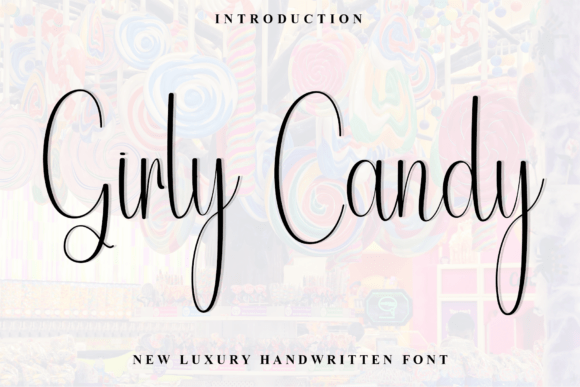
Girly Candy Font: Elevate Your Design with Elegant and Flowing Script
In the world of typography, few fonts manage to capture the essence of elegance and sophistication as effortlessly as the Girly Candy Font. This beautiful script font is a modern take on traditional hand-lettered calligraphy, boasting smooth curves and graceful strokes that instantly elevate any design. Whether you’re looking to create stunning wedding invitations, craft a luxurious logo, or simply add a touch of class to your social media graphics, the Girly Candy Font is the perfect choice.
The Beauty of Girly Candy Font
The Girly Candy Font is more than just a collection of letters; it’s an expression of artistry and refinement. Its elegant and flowing design makes it an ideal choice for projects that demand a high level of sophistication. The font’s smooth curves and graceful strokes are meticulously crafted to provide a luxurious feel, making it perfect for:
- Wedding invitations and ceremony programs
- Logos and branding materials for high-end businesses
- Social media graphics and posts that require a touch of elegance
- Packaging and product labels for premium products
A Modern Twist on Traditional Calligraphy
The Girly Candy Font takes inspiration from traditional hand-lettered calligraphy but infuses it with a modern twist. This blend of classic and contemporary styles results in a font that feels both timeless and current. The font’s design is characterized by:
- Smooth, flowing curves that create a sense of movement
- Graceful strokes that add a touch of elegance
- A refined and sophisticated aesthetic that works well in a variety of contexts
The Versatility of Girly Candy Font
One of the standout features of the Girly Candy Font is its versatility. This font can be used in a wide range of design projects, from romantic and whimsical to classy and chic. Whether you’re aiming for a vintage feel or a modern look, the Girly Candy Font adapts seamlessly to your design vision.
The font’s ability to convey charm and personality in every letter makes it an excellent choice for designers who want to create unique and memorable designs. For instance:
- Use the Girly Candy Font in wedding designs to create a romantic and whimsical atmosphere.
- Employ the font in luxury branding to convey a sense of high-end quality and sophistication.
- Apply the font in social media graphics to add a touch of elegance and refinement.
Why Choose Girly Candy Font?
With so many fonts available, why should you choose the Girly Candy Font for your next project? Here are a few compelling reasons:
- Elegance and Sophistication: The Girly Candy Font exudes elegance and sophistication, making it perfect for designs that require a high level of refinement.
- Versatility: The font’s versatility means it can be used in a wide range of design projects, from weddings to luxury branding.
- Charm and Personality: The Girly Candy Font delivers charm and personality in every letter, ensuring your designs stand out.
- Modern Twist: The font’s modern twist on traditional calligraphy makes it feel both timeless and current.
How to Use Girly Candy Font Effectively
To get the most out of the Girly Candy Font, consider the following tips:
- Pair with Complementary Fonts: Combine the Girly Candy Font with simpler fonts to create visual interest and hierarchy in your designs.
- Adjust Letter Spacing: Experiment with letter spacing to achieve the perfect balance and flow for your text.
- Play with Colors: Use the Girly Candy Font in a variety of colors to match your brand’s aesthetic or the mood of your design.
- Use for Headlines and Titles: The font’s elegance and sophistication make it ideal for headlines and titles, where it can make a significant impact.
The Girly Candy Font is a stunning script font that brings a touch of elegance and sophistication to any design. Its smooth curves, graceful strokes, and modern twist on traditional calligraphy make it perfect for a wide range of projects, from wedding invitations to luxury branding. With its versatility, charm, and personality, the Girly Candy Font is an excellent choice for designers looking to elevate their designs and create a lasting impression.
FAQs About Girly Candy Font
- What type of projects is the Girly Candy Font best suited for? The Girly Candy Font is ideal for wedding invitations, logos, branding, social media graphics, and any project that requires a touch of elegance and sophistication.
- Is the Girly Candy Font easy to read? Yes, despite its elegant and flowing design, the Girly Candy Font is highly legible, making it suitable for both headlines and body text.